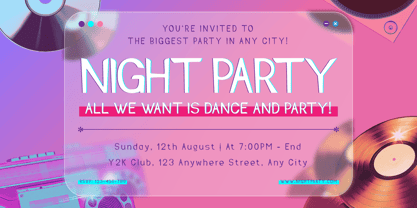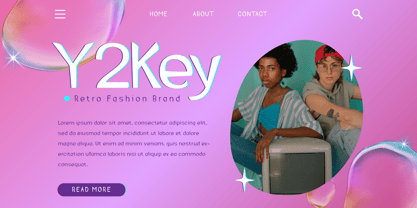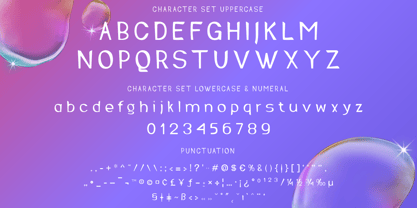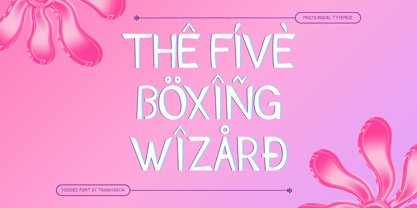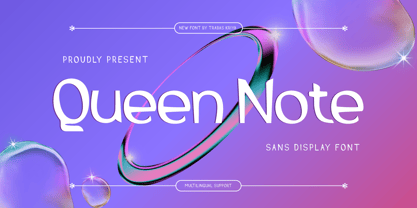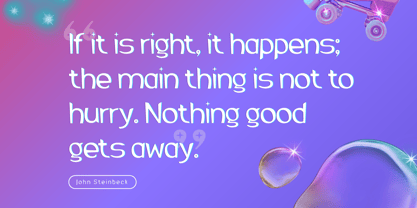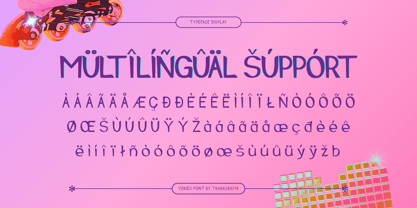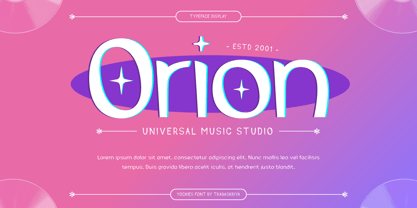
Queen Note
by Trabas Kriya
The Queen Note Font Family was designed by Murozakul Akhsan and published by Trabas Kriya. Queen Note contains 1 styles.
Queen Note is a display font that’s all about creativity. Its unique, artistic characters make it a standout choice for branding, advertising, and any design where you want to make a bold statement. With Queen Note, your designs will always be eye-catching.
- Fonts include Multilingual: Support for 85 languages.
Designers: Murozakul Akhsan
Publisher: Trabas Kriya
Foundry: Trabas Kriya